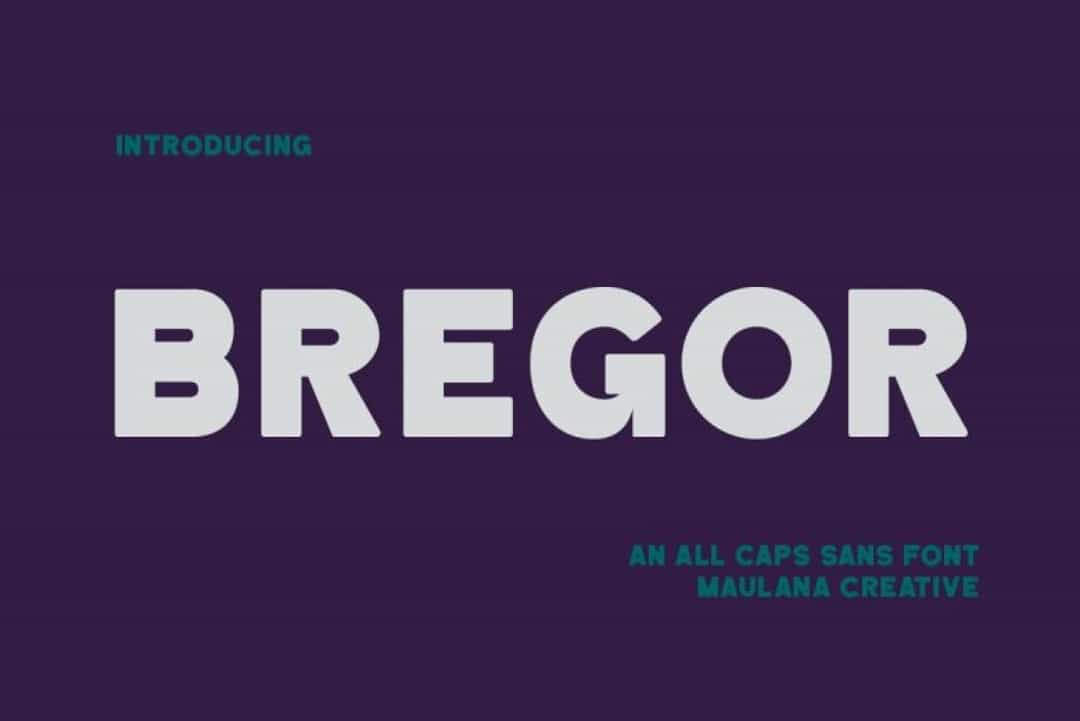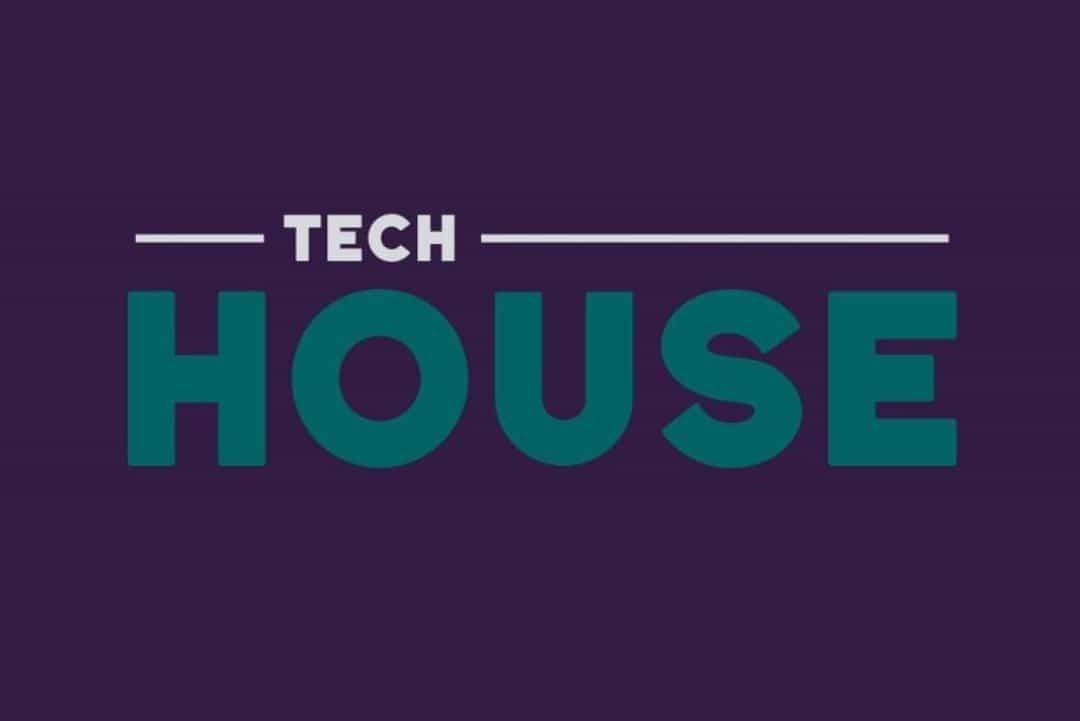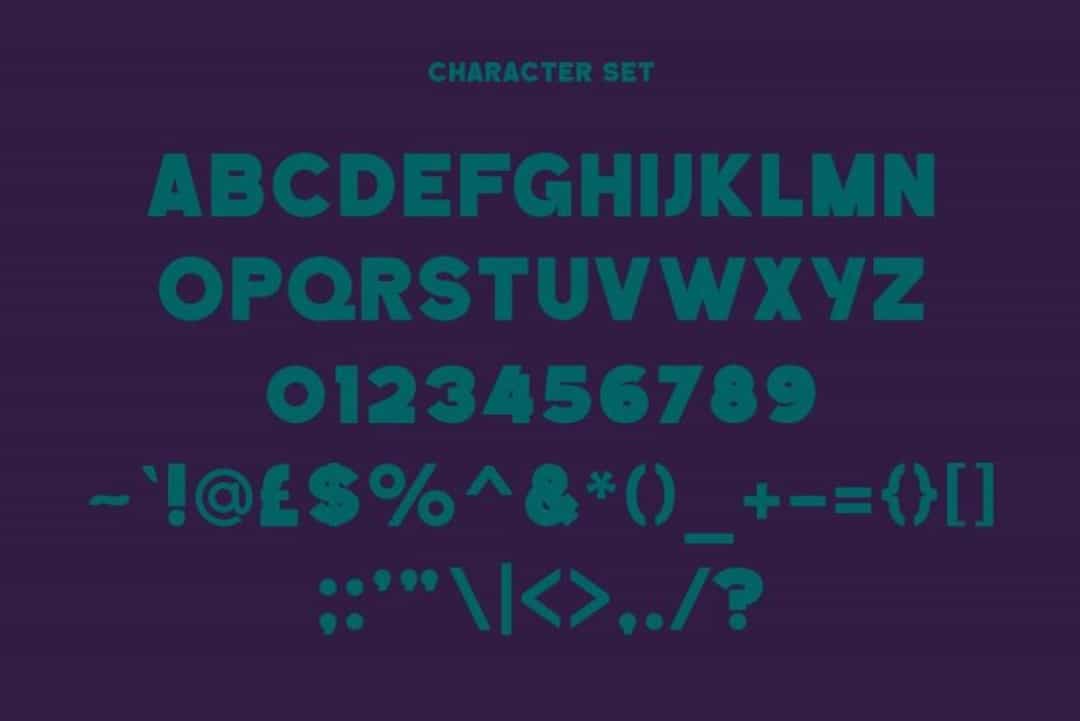
Bregor font is an all-caps, solid sans serif font with bold strokes and lively characters with ligatures for more imaginative work. Additionally, this font supports multilingual support of over 100 languages!